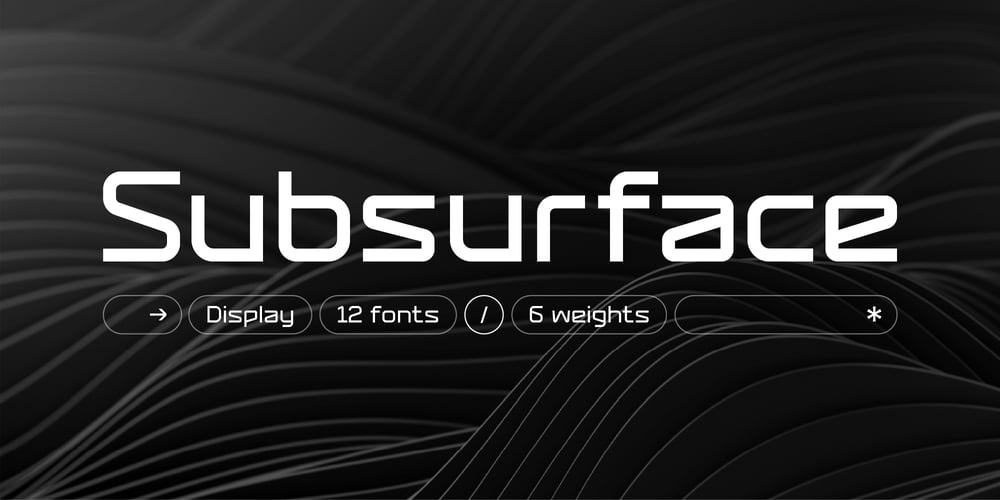
Subsurface
Subsurface font
Subsurface Font Family was designed by Thomas Weaver and published by Further Type. Subsurface contains 12 styles and family package options. Rooted in turn-of-the-millennium futurist design, Subsurface maintains a contemporary sans-serif aesthetic, who’s aesthetics are inspired by the sleek, future-facing look and feel of electronic music, club culture and technology. As an elegant, bold display font, Subsurface is particularly well suited for headlines, logos, and other large-format uses where its distinctive character can capture the imagination of your audience.